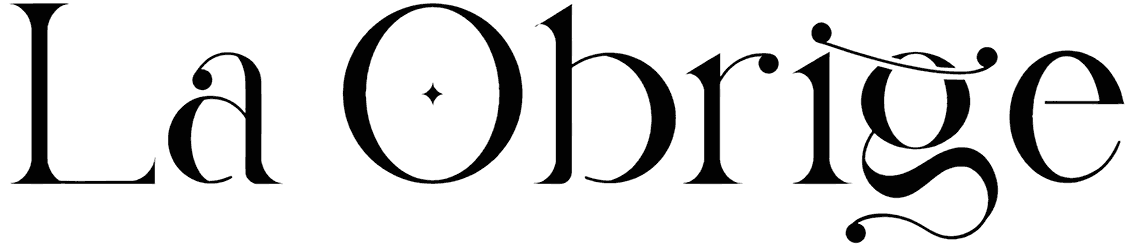
La Obrige Font
If you believe in this statement that beauty comes with simplicity, then we offer you a luxury serif font with a simple form that adds a minimalistic touch to any kind of artwork, ranging from posters, banners, social media posts, and announcements to presentations.
La Obrige is masterfully designed with a huge amount of delicacy and softness, thus it can share a sense of femininity, confidence, trustworthiness, and professionalism. Considering its benefits, not supporting numbers is a negligible deficiency.